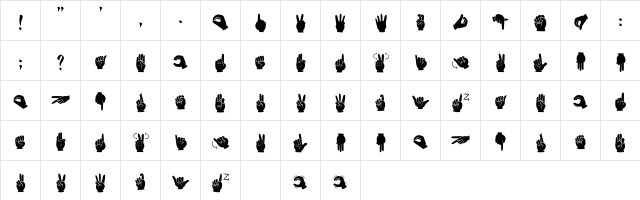
Libras Black 2020 Regular
Design Context for Libras Black 2020 Typeface
Libras Black 2020 is a composed and adaptable typeface that performs quietly and consistently across a wide range of design contexts.